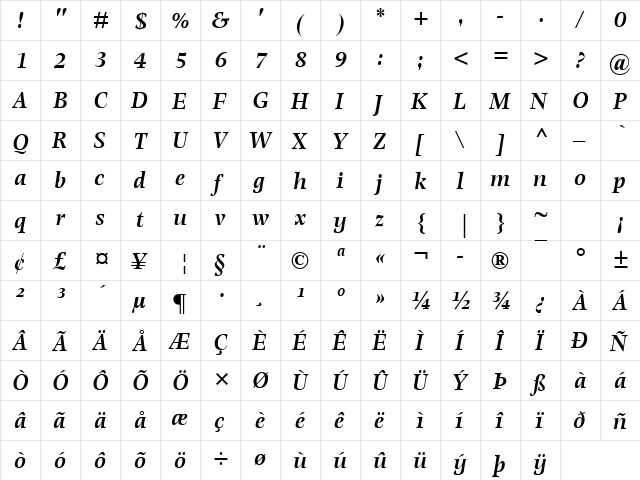
Photina MT Semi Bold Italic
Design Context for Photina MT Semi Bold Typeface
Photina MT Semi Bold takes a measured approach to typography — its balanced proportions and neutral character make it a reliable workhorse for both digital and print work. The slanted form adds forward momentum and visual energy. The heavy weight commands attention and anchors typographic hierarchies.
Pro Tip: Try Photina MT Semi Bold for annotation and caption copy alongside an upright companion — the contrast in angle creates a dynamic but ordered typographic system.